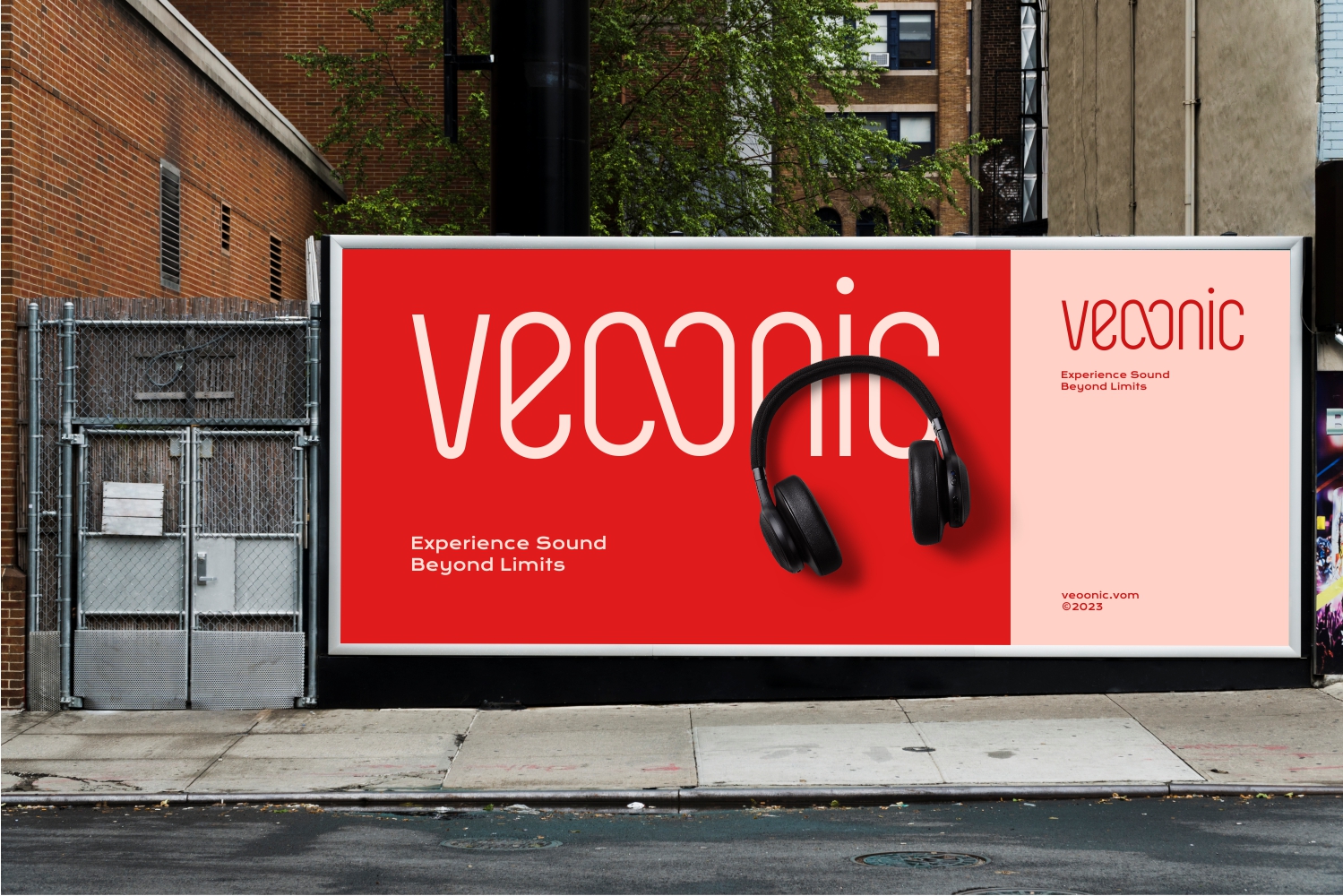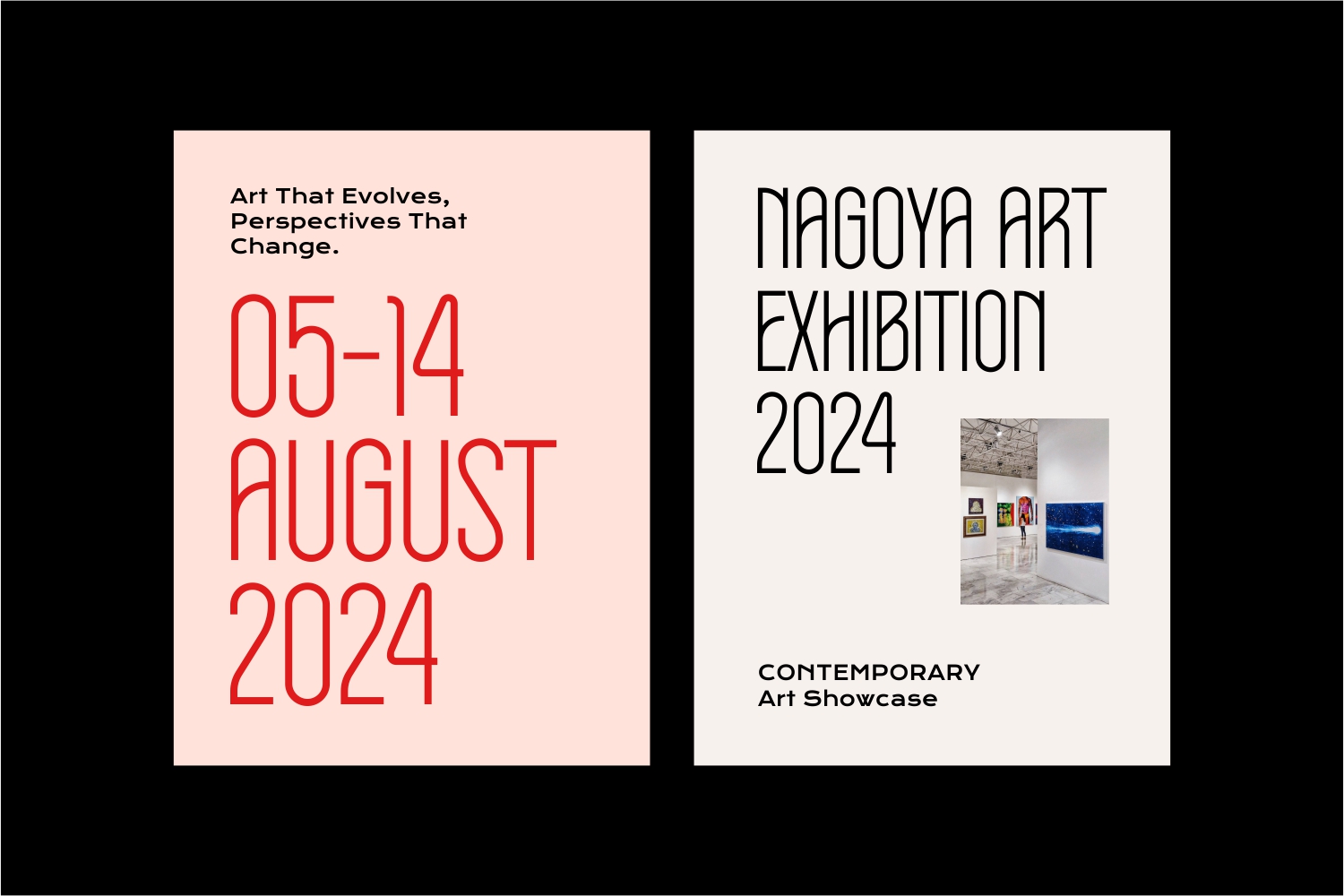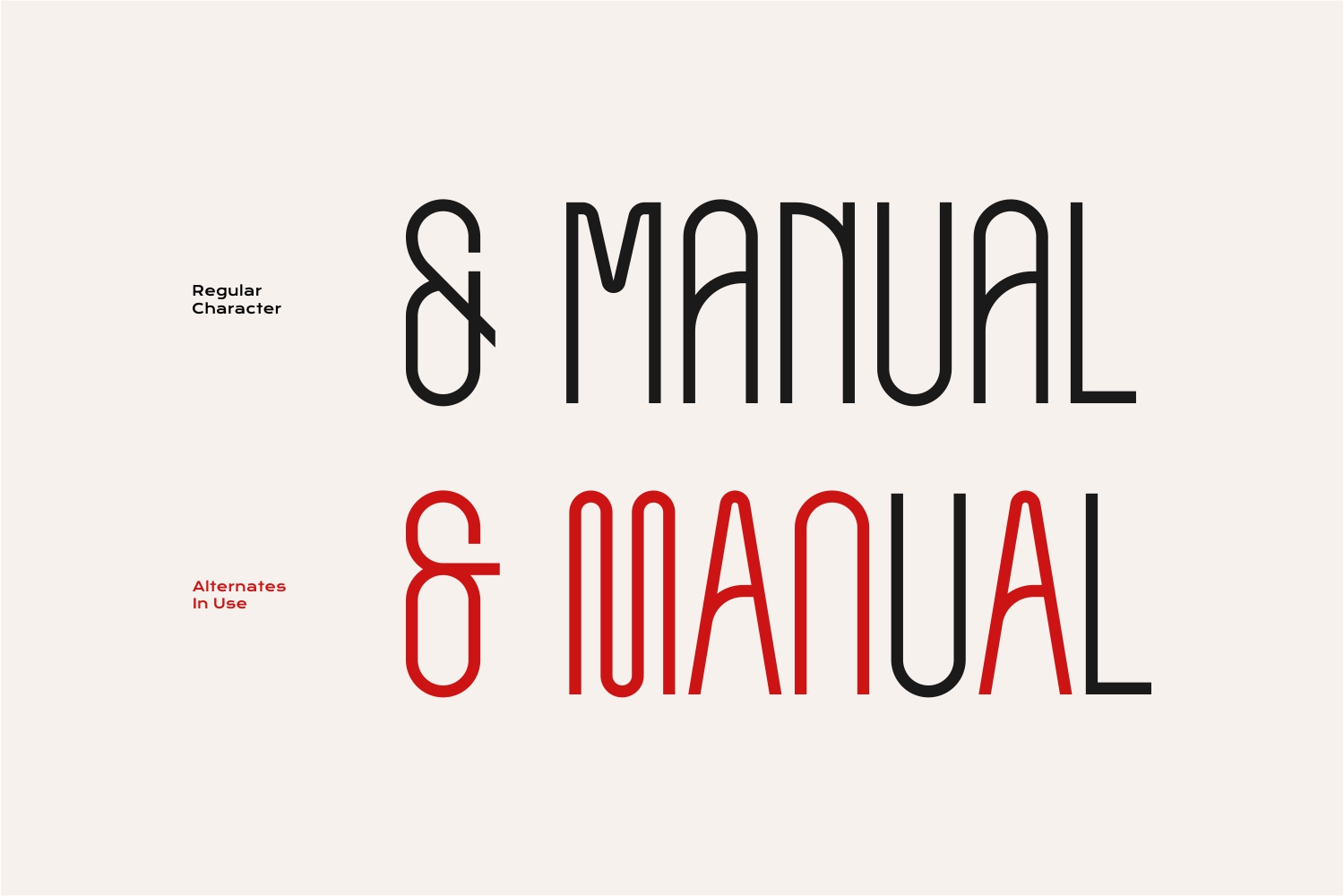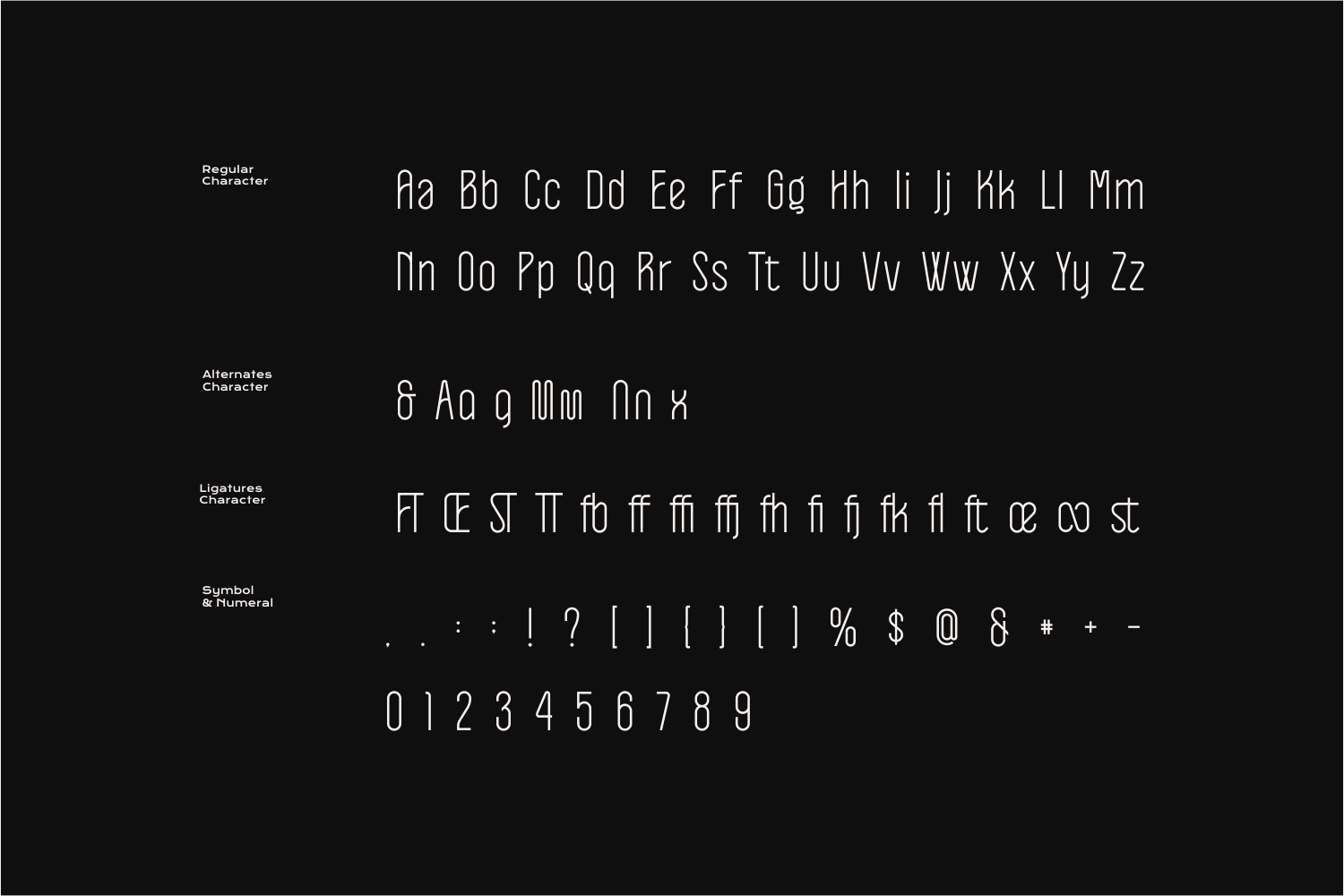
Mongole
Glyphs for Mongole
Mongole is a unique condensed display font with a sleek, contemporary aesthetic that blends geometric curves and straight verticals. Designed for standout branding, this typeface showcases bold personality through its tight letterforms, creative ligatures, and alternate glyphs that add a touch of modern sophistication.
Perfect for use in logos, editorial titles, posters, and urban-inspired visuals, Mongole offers both regular and experimental styles that support expressive typographic compositions. Its high contrast and clean lines deliver clarity while maintaining a distinct visual identity.